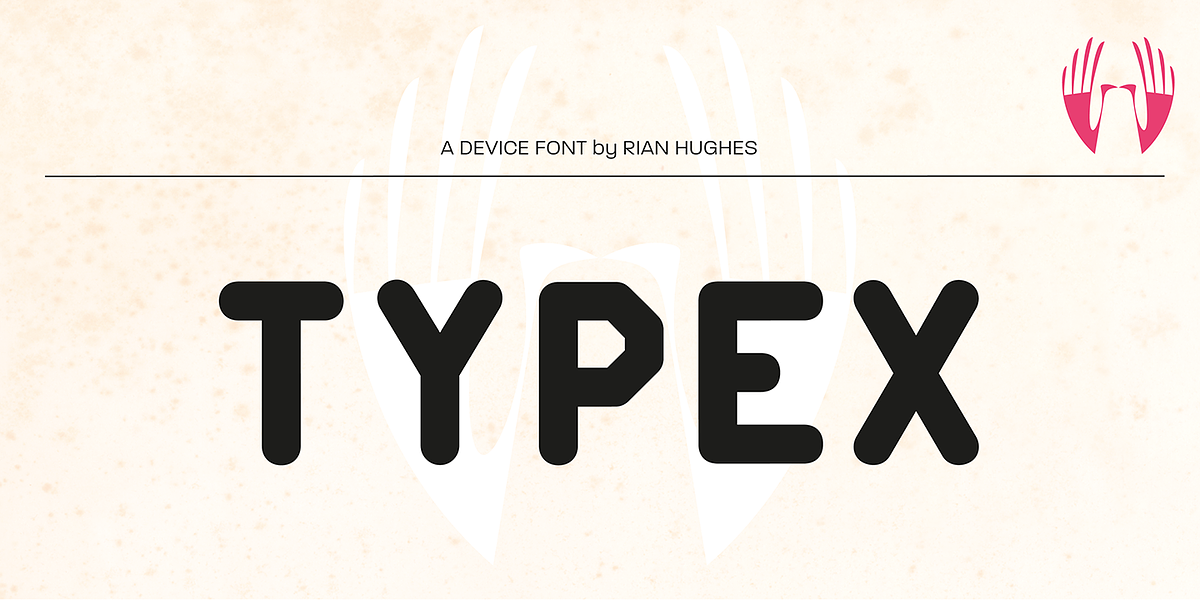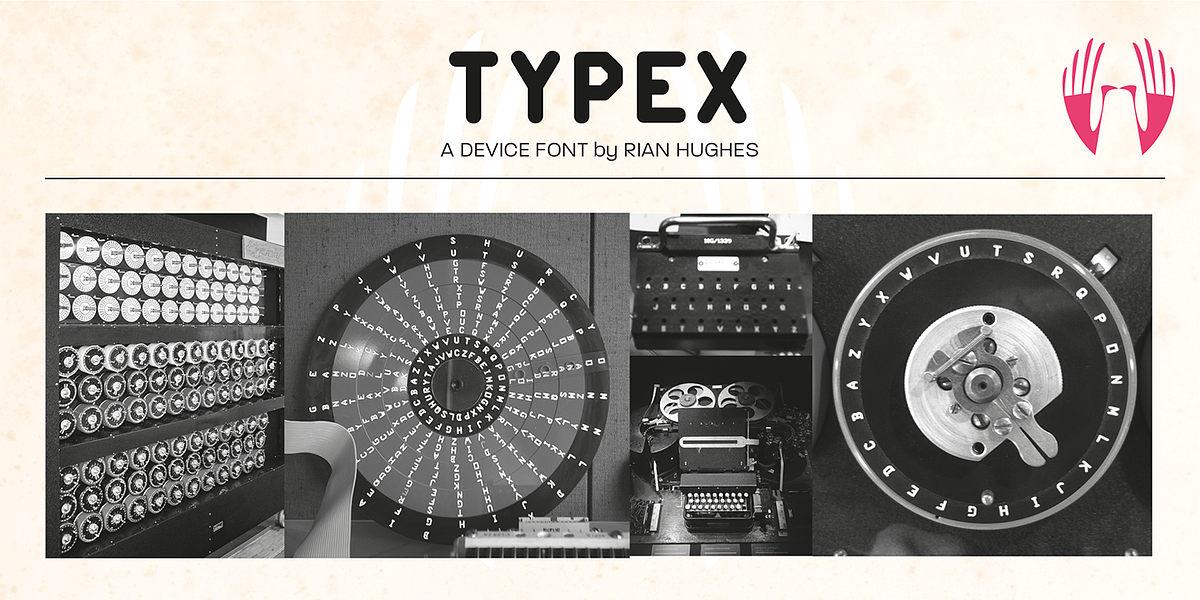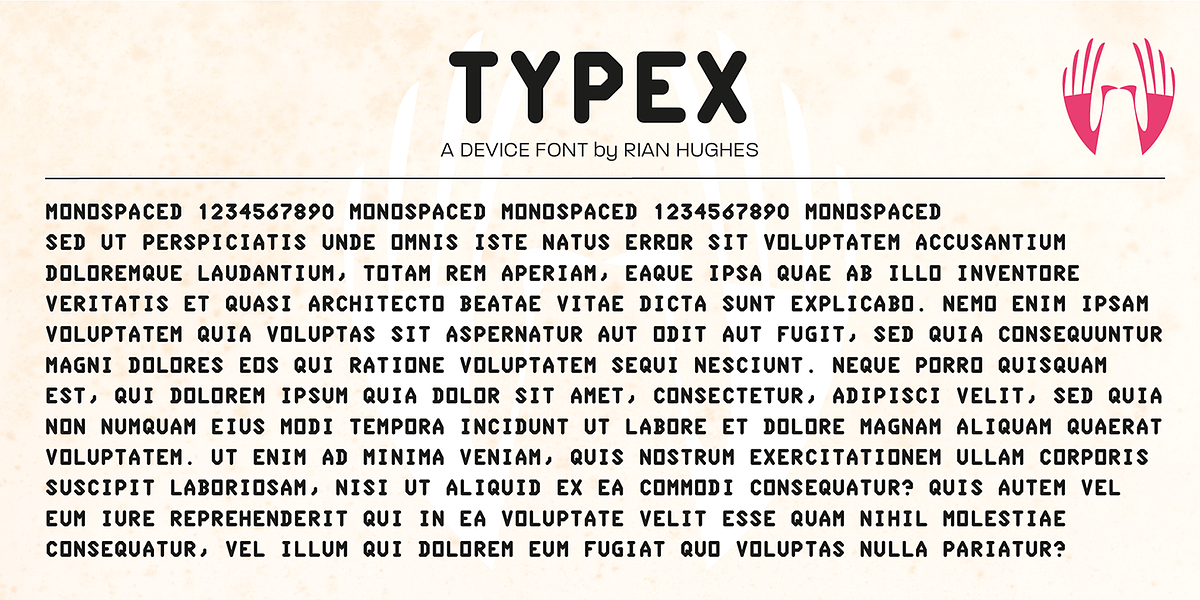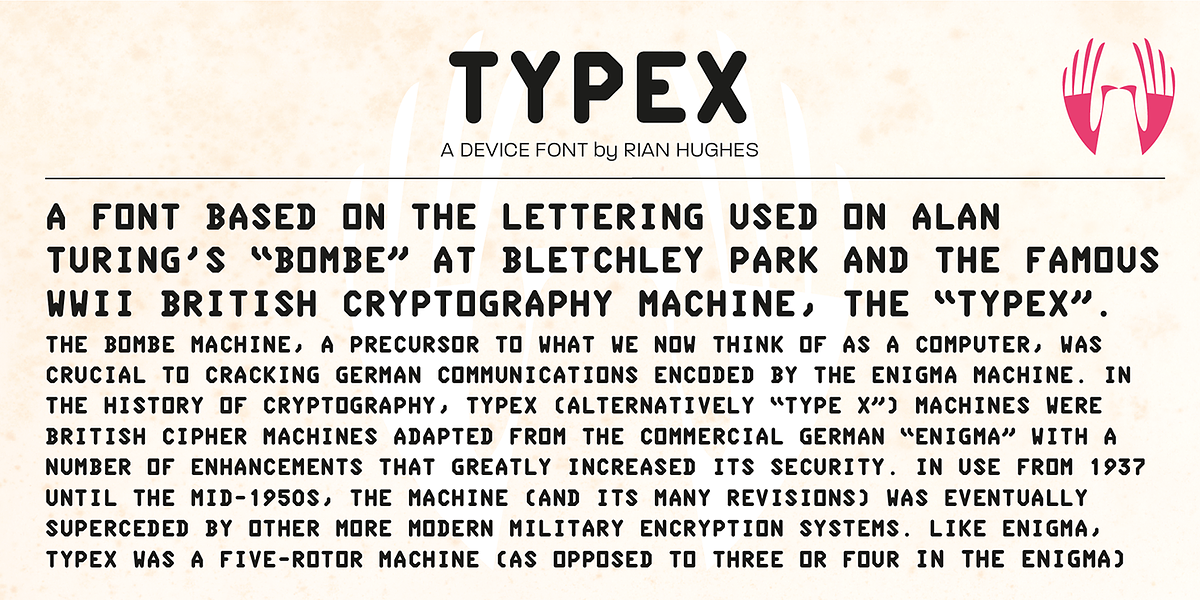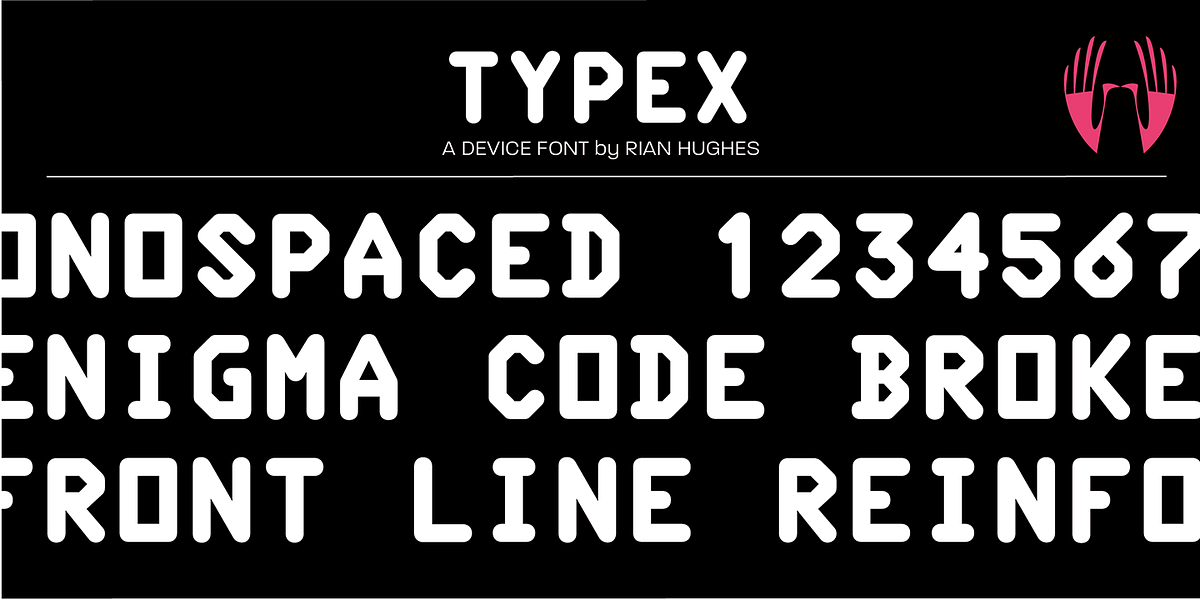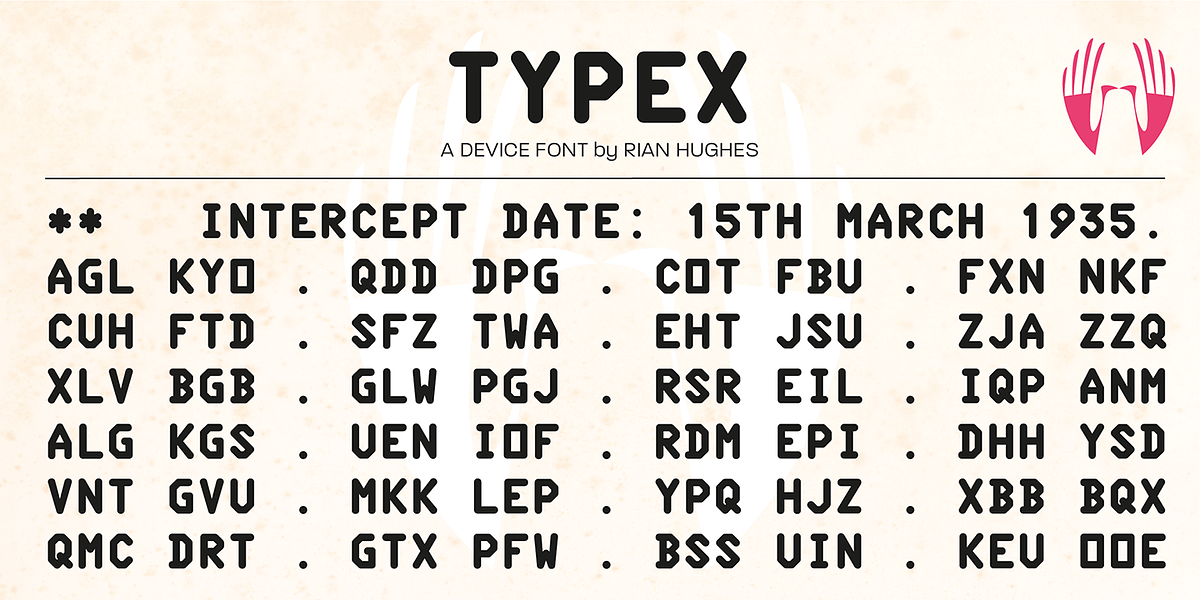
Typex
This font draws inspiration from the unique design of Alan Turing's Bombe machine and the subsequent British Typex machine used during World War II to decrypt German Enigma codes. It features a distinctive geometric sans-serif style with monospaced characters and an unusual octagonal shape for certain letters. The result is a retro-inspired font suitable for headlines, branding, and projects requiring a historical or technical aesthetic.